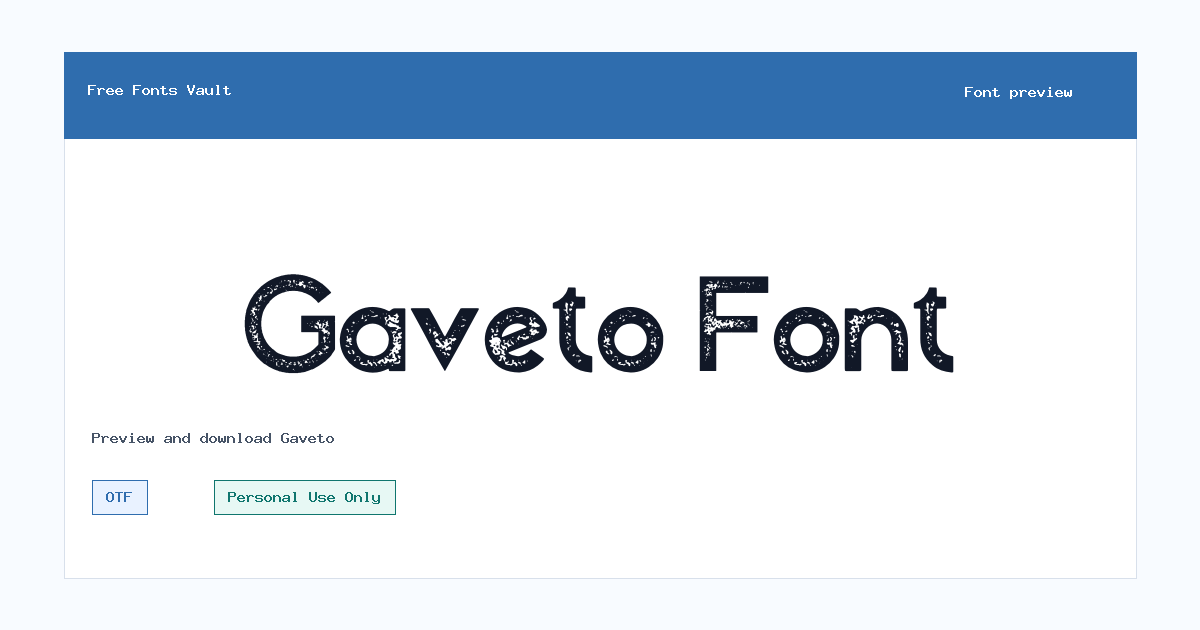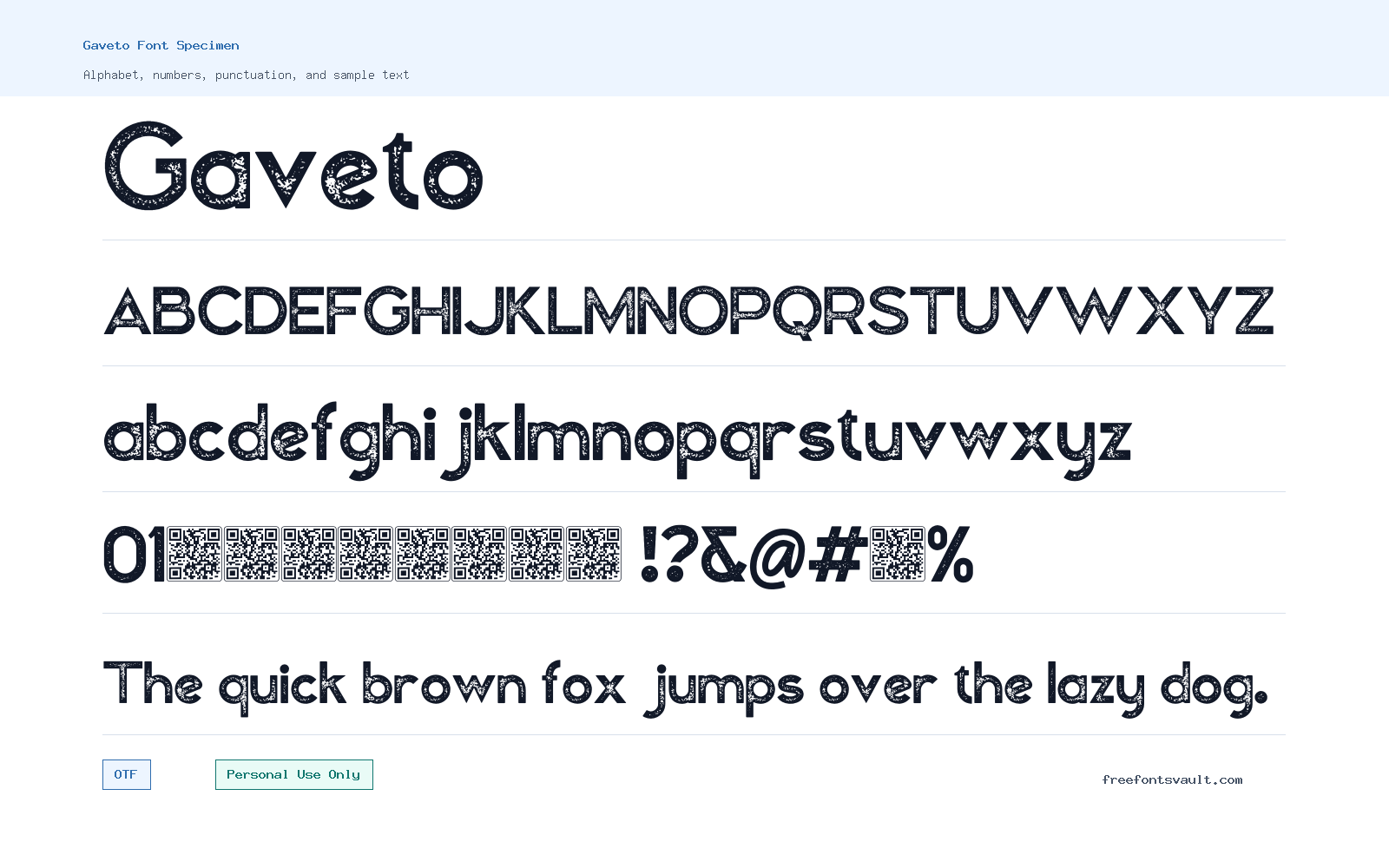
Gaveto
- Designer Sarwo Edhi Prayitno
- Foundry Absonstype
Gaveto font.
Gaveto is a sans serif font from Sarwo Edhi Prayitno and Absonstype, offered with a personal-use license. It is a good font to test when you need a clean display style for titles, branding drafts, poster layouts, and visual mockups, while keeping the license limits in mind.
About Gaveto
Gaveto is listed as a sans serif font, which makes it suitable for projects where you want letterforms without decorative serifs. Since only the regular style is available, it is best treated as a focused display or headline choice rather than a large family for complex typography systems. Try it first in the preview tool with the exact words you plan to use, especially if your design depends on a short name, logo concept, quote, or large heading. A font can feel very different in all caps, title case, and lowercase, so previewing real text is the safest way to judge spacing, rhythm, and overall tone.
For designers, Gaveto may work well in early-stage logo exploration, poster headlines, social graphics, packaging mockups, YouTube thumbnails, web hero sections, and simple branding presentations. Keep the use practical: test it at large sizes, check how the letters sit next to each other, and avoid assuming it will suit long paragraphs until you have reviewed readability in your layout. With a single OTF regular file, the font is easier to use for display work than for full editorial systems that need multiple weights, italics, or extended hierarchy. If your design needs body text, pair Gaveto with a quiet, readable text face and let Gaveto handle the short, attention-grabbing parts.
When pairing Gaveto, choose fonts that do not compete with it. A neutral sans serif or a readable serif can work well for supporting text, captions, and descriptions. Keep contrast simple: Gaveto for the main title, the supporting font for everything the reader must scan quickly. Avoid using too many display fonts in the same design, because the layout can become noisy and harder to read. If Gaveto feels strong in your preview, give it space with generous margins, simple colors, and clear alignment.
- Sans serif style suited to short display text, headlines, and branding drafts
- Useful for testing logo concepts, posters, social graphics, and web hero mockups
- Best used with a readable supporting font when a design also needs body copy
- Logo sketches and personal branding experiments
- Poster titles and event-style headline layouts
- Social media graphics, thumbnails, and quote images
- Website hero mockups and landing page title tests
- Packaging concepts, mood boards, and presentation drafts
- Short display words where the font can be tested at larger sizes
Who designed Gaveto?
Gaveto is credited to Sarwo Edhi Prayitno, with Absonstype listed as the foundry.
Is Gaveto good for body text?
Use the preview tool before choosing it for longer text. Since only a regular style is available, Gaveto is safer for headings and short display text than for full body-copy systems.
What should I pair with Gaveto?
Pair it with a quiet, readable sans serif or serif for body text. Let Gaveto handle the main headline, then keep supporting typography simple.